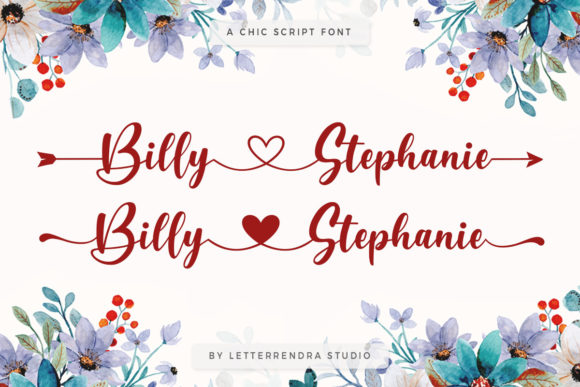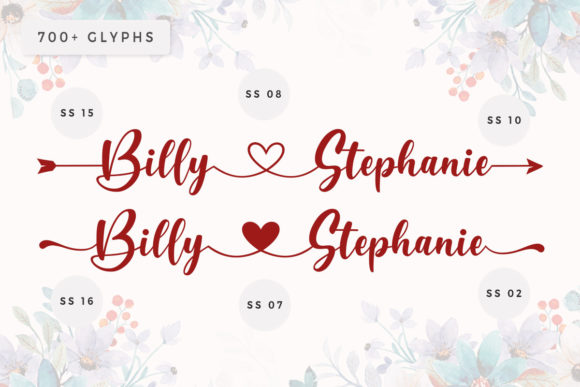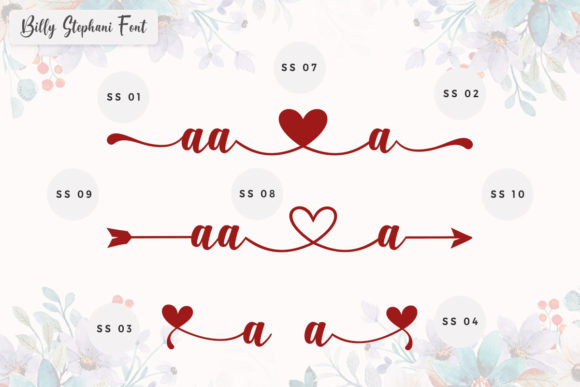
About Billy Stephanie Font
Billy Stephanie is a delicate script font. This font is neatly crafted and highly detailed. Whatever the topic, this font will be a wonderful asset to your font library, as it has the potential to enhance any creation. Billy Stephanie is PUA encoded which means you can access all of the glyphs and swashes with ease!